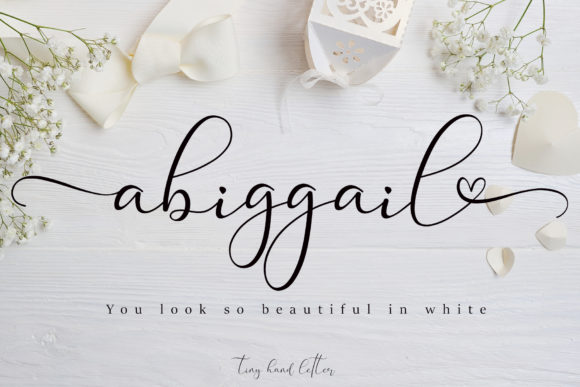
Welcome to the world of Abiggail Font, a script font family that will captivate your senses with its enchanting beauty and handwritten charm. Crafted by the talented tinyhandletter, Abiggail Font is a symphony of elegance, perfect for adding a personal touch to your creative projects.
With its graceful swashes and enchanting ligatures, Abiggail Font dances across the page, evoking a sense of nostalgia and romance. Imagine the joy of receiving a wedding invitation or thank-you card adorned with Abiggail's delicate strokes, each letter flowing seamlessly into the next, creating a visual masterpiece that lingers in the memory.
Abiggail Font is a versatile artist, equally at home on greeting cards, logos, business cards, and any design yearning for a handwritten flair. Its versatility knows no bounds, making it the perfect font for a wide range of projects, from personal to professional.
Indulge your creative spirit and let Abiggail Font guide you into a world of beauty and inspiration. With its timeless appeal, this font will transform your words into works of art, capturing hearts and imaginations wherever they may wander. Embrace the magic of Abiggail Font and elevate your designs to new heights of creativity.